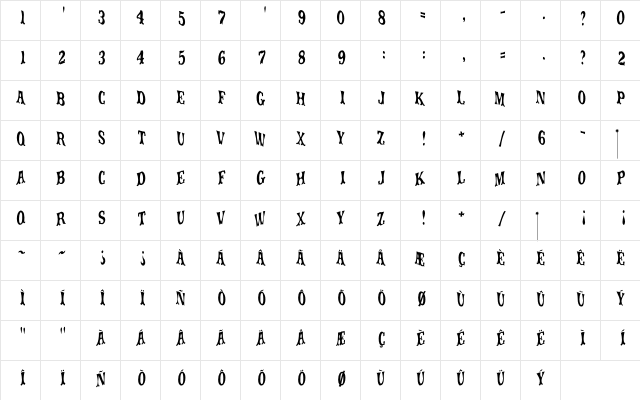
Movieolatitletype Regular
Design Context for Movieolatitletype Typeface
Movieolatitletype is a composed and adaptable typeface that performs quietly and consistently across a wide range of design contexts.